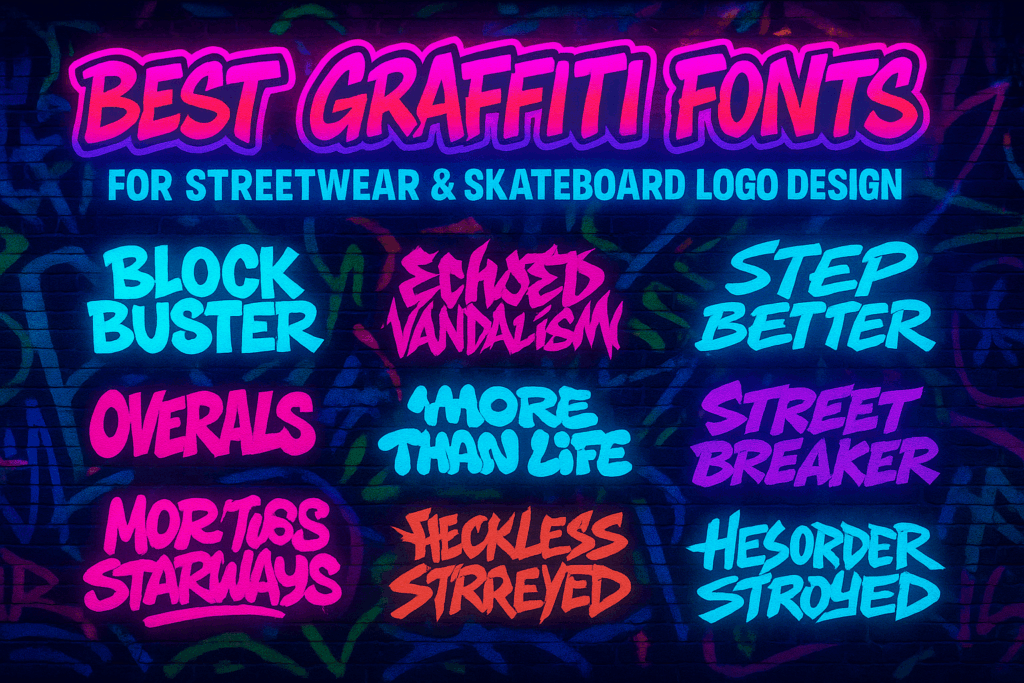
Best Graffiti Fonts for Streetwear & Skateboard Logo Design (2025 Guide)
Neon graffiti typography thumbnail showcasing the top 10 graffiti fonts from Ronny Studio for streetwear and skateboard logo design.
Graffiti fonts have become a massive trend in 2025 for streetwear, skateboarding brands, apparel graphics, stickers, festival posters, and youth culture branding.
Their raw energy, expressive strokes, and rebellious shape make them perfect for modern urban identity.
Here are 10 of the best Graffiti Fonts from Ronny Studio that are dominating design trends this year.
1. Block Buster
A bold urban graffiti font with chunky forms — perfect for skateboard decks, hoodie graphics, and brand logos.
2. Echoed Vandalism
Wild, expressive, vandal-style graffiti.
Ideal for street posters, hip-hop merch, and sticker bombing visuals.
3. Overals
Chaotic street tags with grungy outlines.
Great for underground clothing brands and raw streetwear drops.
4. More Than Life
More Than Life – Bubble graffiti font for street art, hip hop design, posters, and urban branding
More Than Life is a playful bubble graffiti font, perfect for urban street art, posters, album covers, and creative branding.
Bubble graffiti with youthful character — perfect for playful streetwear & pop-urban logos.
5. Neckless Starways
Sharp, aggressive graffiti style — ideal for EDM merch, neon streetwear, and festival branding.
6. Step Better
Step Better – Urban graffiti tags font for street art, hip hop posters, stickers, and modern urban branding
Step Better is an authentic graffiti tags font, perfect for street art designs, hip hop culture projects, and urban-inspired branding.
Authentic hand-tag graffiti for underground zines, street posters, and signature logos.
7. Snikers
Snikers – Bold graffiti font for street art, posters, hip hop design, and urban branding
Snikers is a bold graffiti-style font, perfect for urban designs, hip hop posters, streetwear branding, and creative artwork.
Chunky modern graffiti — strong visual punch for t-shirt graphics & skate brands.
8. Street Breaker
Urban-style graffiti with bold structure — great for mural-like designs and street casual fashion.
9. Hesorder
Hesorder – Urban graffiti font for street art, hip hop posters, stickers, and edgy branding
Hesorder is a bold urban graffiti font, perfect for posters, album covers, streetwear, and creative street art designs.
Expressive brush graffiti — perfect for album covers & artistic streetwear identity.
10. Heylabs Stroyed
Raw vandal letters with broken strokes — ideal for dark streetwear, grunge posters, and skate tagging.
Conclusion
Graffiti fonts add attitude, character, and raw energy to branding.
If you want your streetwear or skateboard brand to stand out in 2025, these fonts from Ronny Studio are your strongest choice.